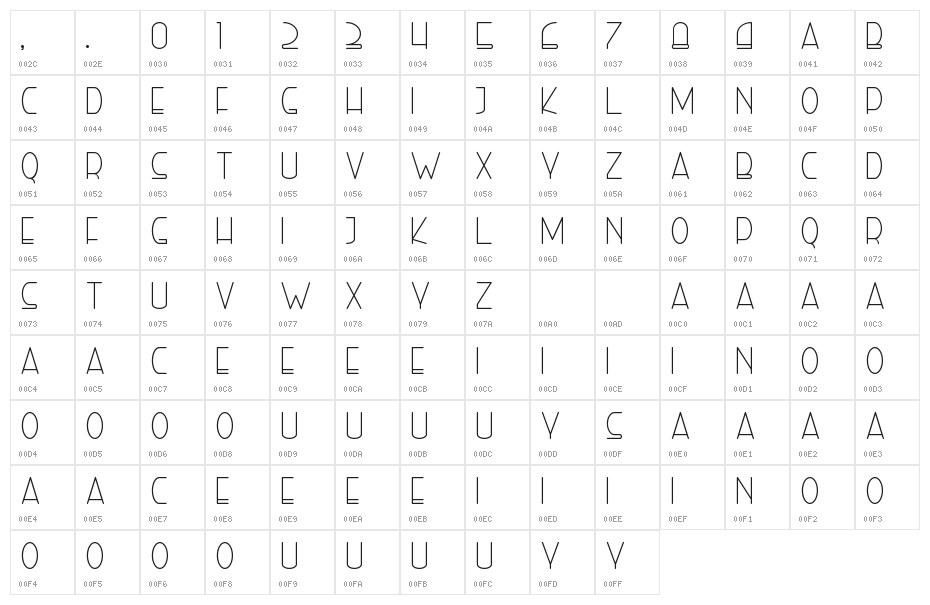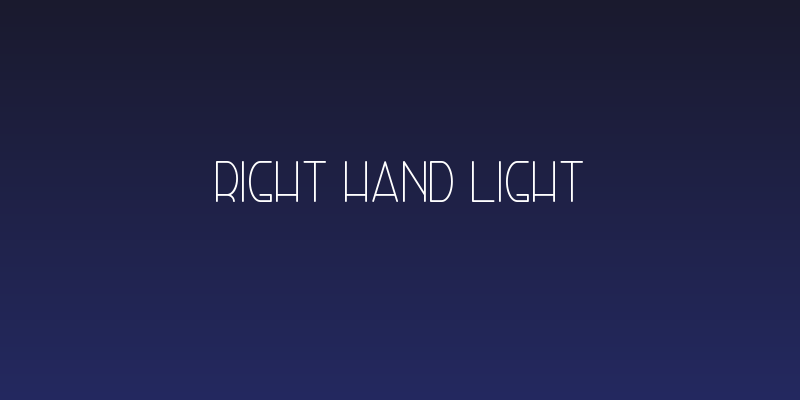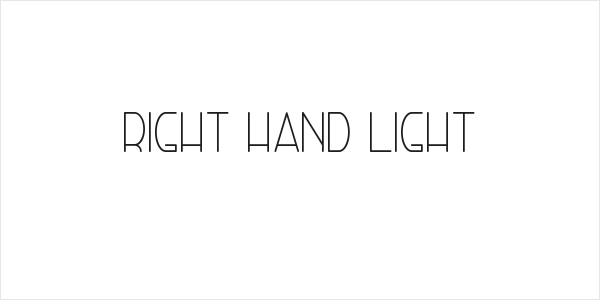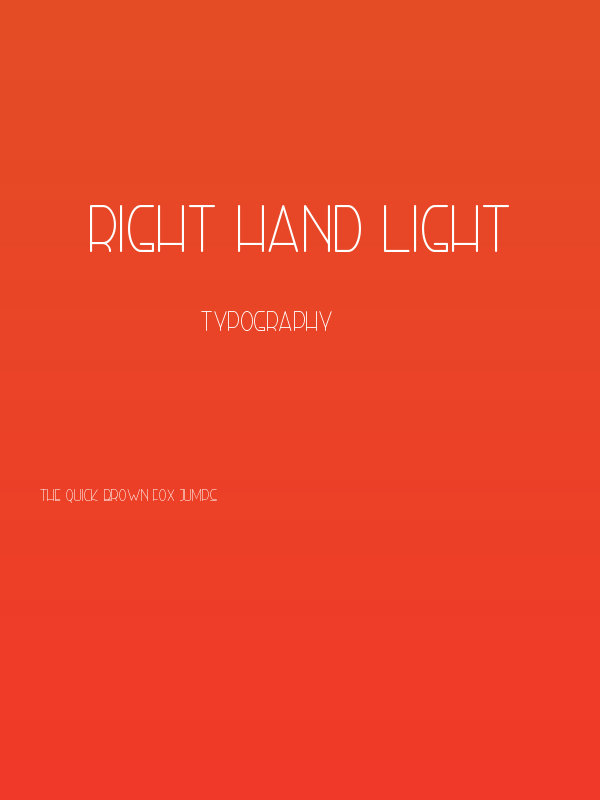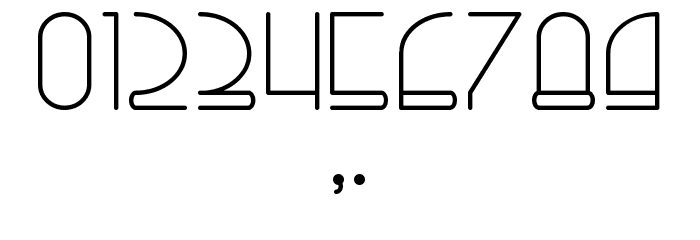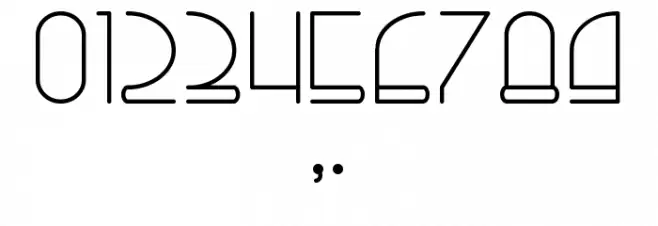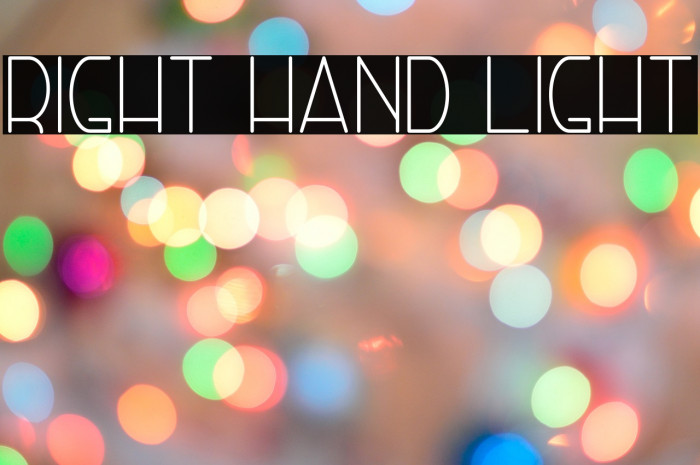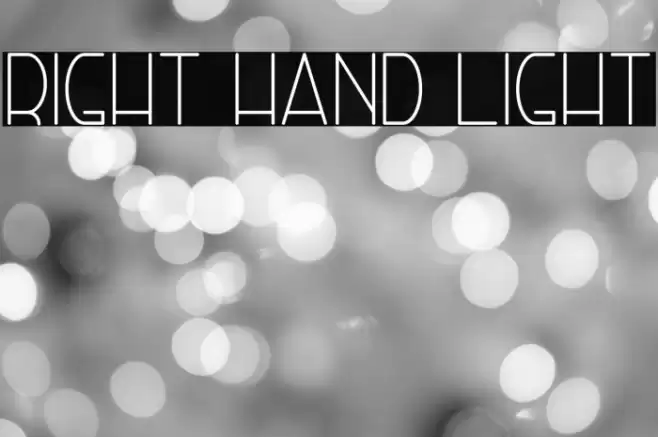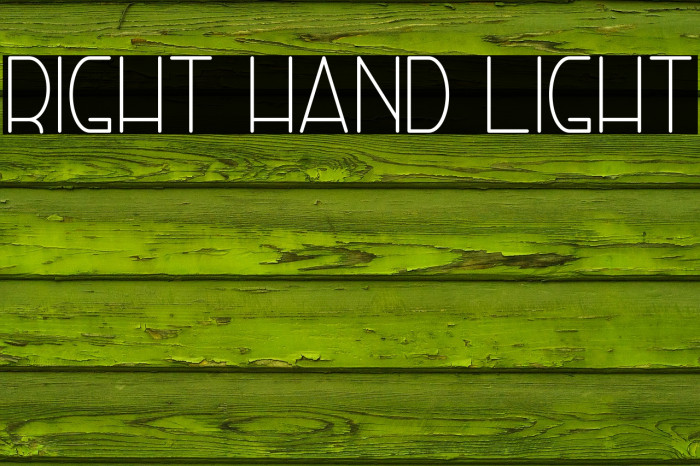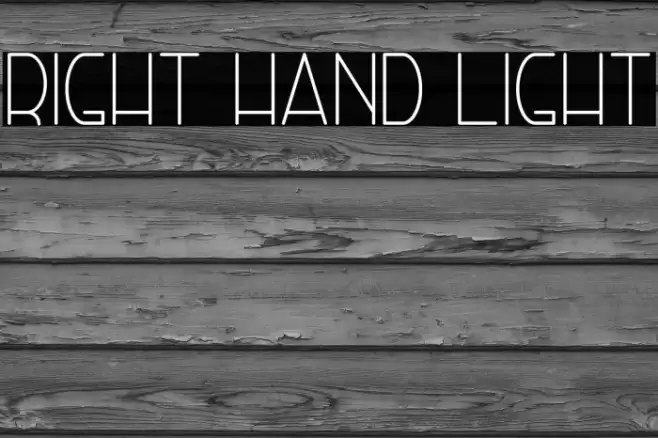
Right Hand Light Font
Right Hand Light Description
This font features a modern, geometric design with clean lines and a minimalist aesthetic. The characters are constructed with a consistent stroke width, giving it a uniform appearance. The uppercase letters have a distinct architectural feel, with sharp angles and straight edges. The lowercase letters maintain the same geometric style, offering a cohesive look across all characters. The numerals are uniquely styled, with a futuristic touch that complements the overall design. The special characters are simple yet effective, fitting seamlessly with the rest of the font. This font's design is both functional and stylish, making it suitable for a variety of applications.